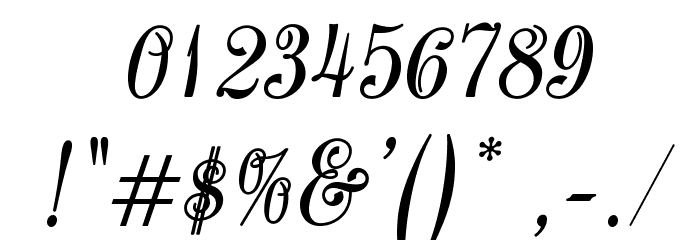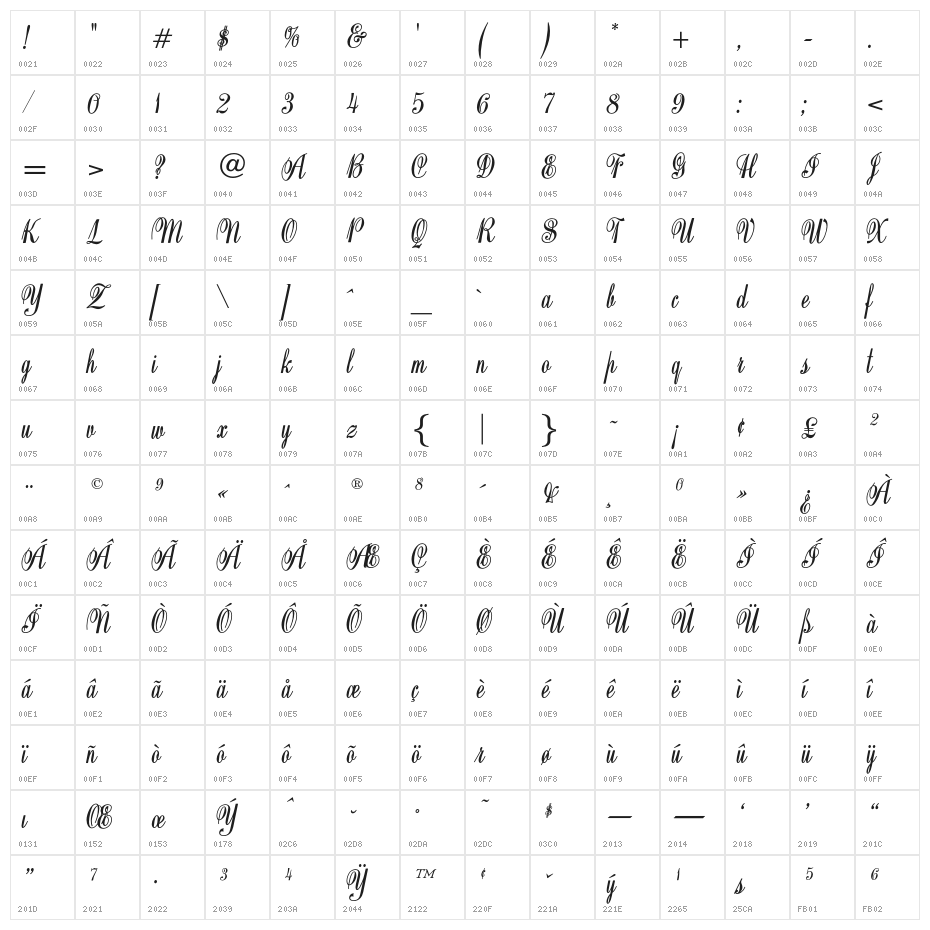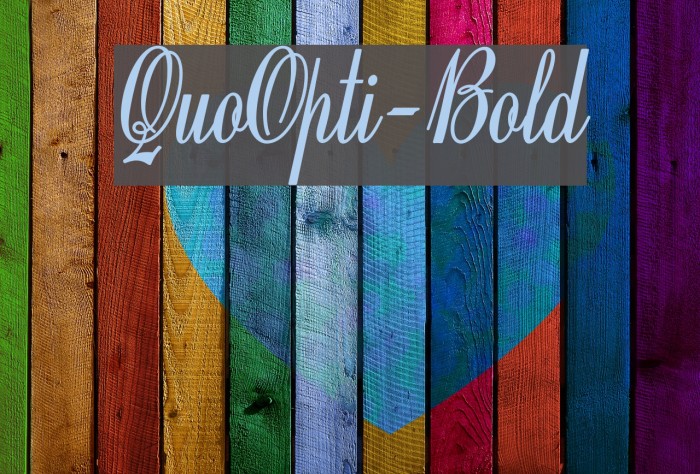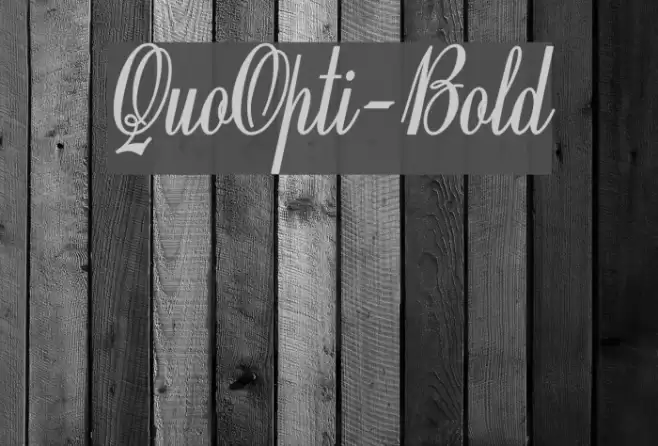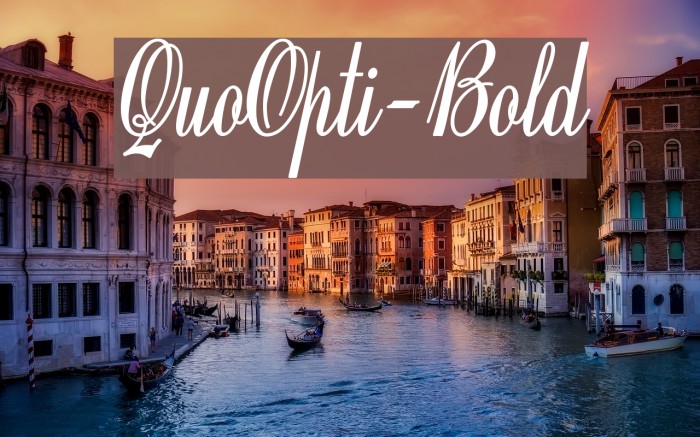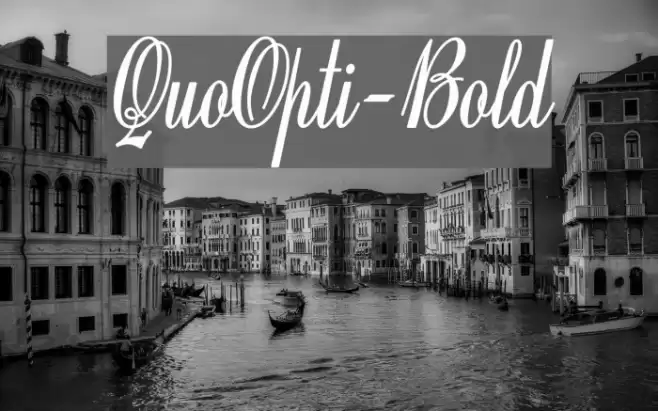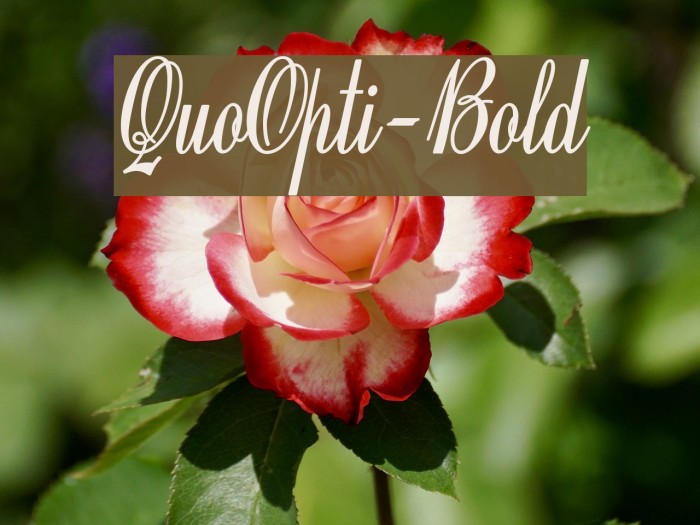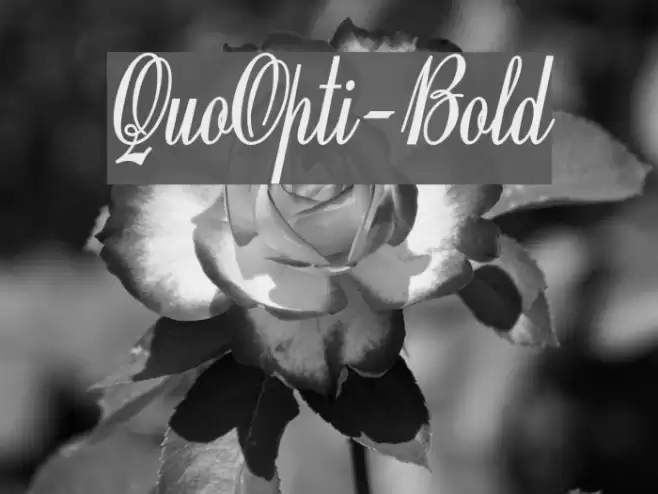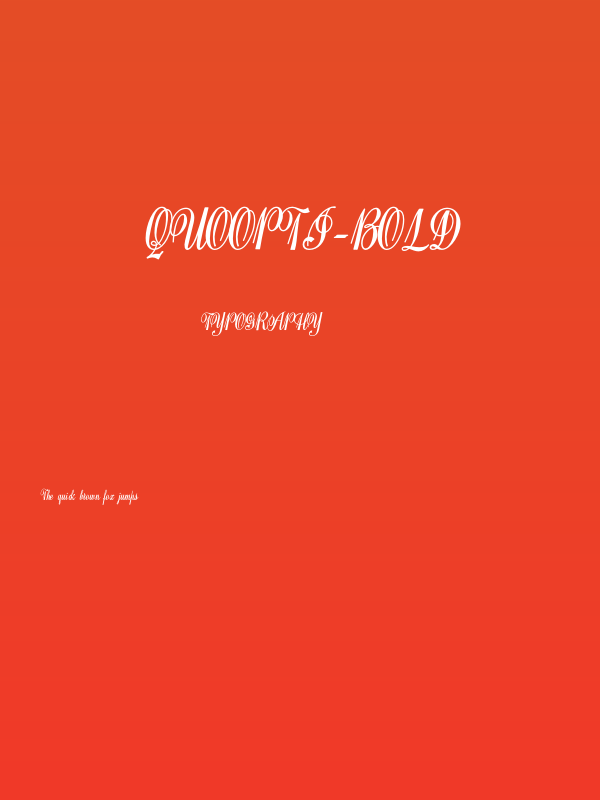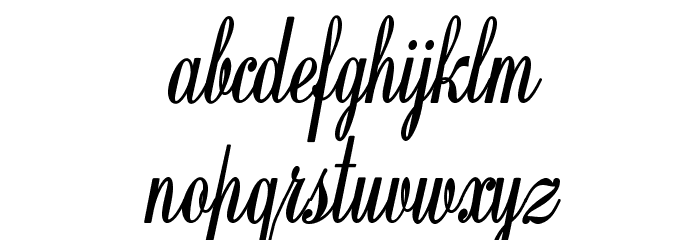
QuoOpti-Bold Font
QuoOpti-Bold Description
This font features a bold, elegant script style with a flowing, cursive design. The uppercase letters are ornate, with sweeping curves and flourishes that give a sense of sophistication and grace. The lowercase letters maintain a consistent flow, complementing the uppercase with their smooth, connected strokes. Numbers are styled to match the overall script aesthetic, adding a touch of elegance to numerical expressions. Special characters are thoughtfully designed to integrate seamlessly with the letters, maintaining the font's cohesive look. The overall appearance is both decorative and legible, making it suitable for a variety of creative applications.
| Proposed Projects | Ideal for wedding invitations, elegant branding, greeting cards, and decorative headlines. |